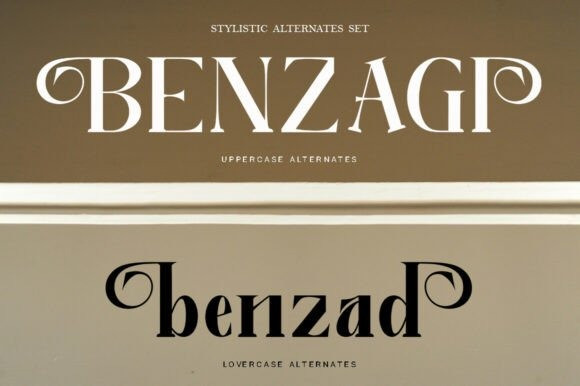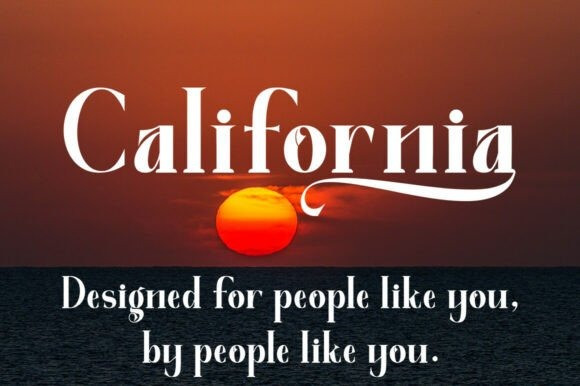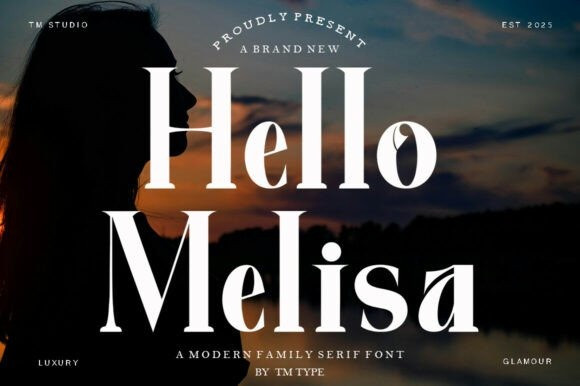
Hello Melisa Font
Hello Melisa Font is a refined modern serif font that seamlessly blends sophistication with statement. Its tall, elegant letterforms are accentuated by dramatic high-contrast strokes and sharp vertical serifs. What makes this typeface truly distinctive is its subtle incorporation of organic teardrop terminals and cut-out flourishes, giving it a glamorous editorial flair. It evokes a sense of confidence, luxury, and poise—ideal for upscale branding, book covers, fashion magazines, and premium packaging. With a commanding presence and graceful curves, Hello Melisa is a perfect marriage of classic serif roots and contemporary elegance, making every word a bold visual impression.